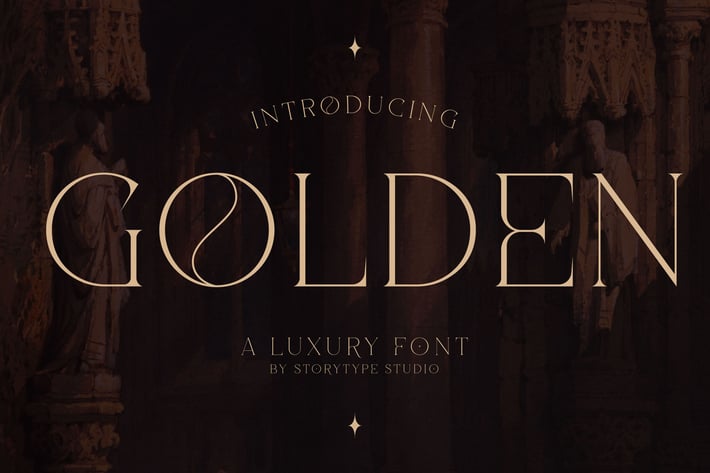
Golden Luxury Font
Golden is a luxury serif font that embodies elegance and sophistication. Designed with refined letterforms and stylish ligatures, this font is perfect for premium branding, wedding invitations, editorial designs, and high-end packaging. Whether you're creating a classic logo or an elegant headline, Golden brings a timeless and exclusive touch to your projects.
- Elegant Serif Style – Perfect for luxury branding and editorial designs
- High-End Aesthetic – Suitable for fashion, wedding, and lifestyle themes
- Versatile & Timeless – Ideal for both modern and classic compositions
- Complete Character Set: Uppercase, lowercase, numerals, punctuation, and ligatures